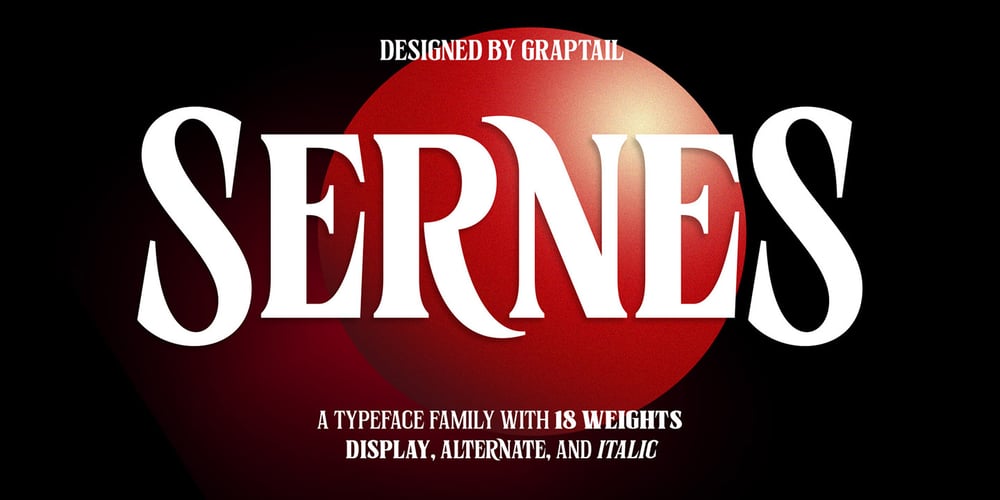
Sernes
Sernes font
Sernes Font Family was designed by Teuku Deky Firnanda and published by Graptail. Sernes contains 18 styles and family package options. Sernes was inspired by the letterforms in the film series “stranger things” with condensed letters.comes with 18 weights which includes display, alternate and italic.Also supported PUA encoded. Simply copy and paste the alternate characters using the Character Map (Windows), Font Book (Mac) or a software program such as PopChar (for Windows and Mac).